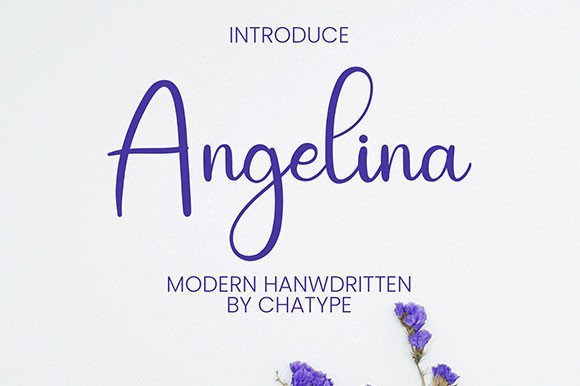
As you sit at your desk, staring at a blank page, the creative juices start flowing. You envision a beautiful quote, a stunning logo, or a eye-catching poster. The possibilities are endless, and the right font can make all the difference. That’s where the elegant Angelina Font comes in – a fresh and refined script that’s perfect for bringing your creative vision to life.
Angelina Font is more than just a typeface; it’s a tool for designers to express themselves and add a touch of sophistication to their projects. Whether you’re working on a fashion brand, a wedding invitation, or a blog header, Angelina Font is a versatile and valuable asset that can elevate your design to the next level.
Angelina Font Key Features
- Unique Characteristics: This script font features elegant, cursive lettering with a touch of vintage charm, making it suitable for creative and artistic designs.
- Font Style: The font is available in a single style, with various weights and ligatures, enabling designers to create unique and customized text layouts.
Angelina Font Review
Overall, I think Angelina Font has some great qualities, but it also has its limitations. Let’s start with what works well: ✨ the elegant and feminine touch, ✨ the beautiful curves that add a sense of sophistication, and ✨ the versatility in font weights and styles.
- The font is perfect for designing feminine brands, such as fashion, beauty, or lifestyle companies.
- It pairs well with other elegant fonts to create a cohesive and polished look.
- The font weights and styles are diverse enough to accommodate various design needs.
However, there are some limitations to consider: ⚠️ the font may not be suitable for bold or edgy designs, ⚠️ the lowercase letters can be difficult to read at smaller font sizes, and ⚠️ the font may not be as readable on digital devices with lower resolution screens.
Overall, I think Angelina Font is a great choice for designers who want to add a touch of elegance and sophistication to their designs. While it may have some limitations, it’s a versatile and beautiful font that can be used in a variety of contexts.
Tips for Getting the Most Out of Angelina Font
Use Angelina Font for creative projects that require a unique and elegant touch.
Experiment with different font sizes and styles to achieve the desired effect.
Pair Angelina Font with other creative fonts to add depth and visual interest to your design.
Birth announcements and baby shower invitations
Personalized gifts and cards
Alternatives to Angelina Font for Designers
Great Vibes is a modern, elegant script font ideal for creating a sophisticated and luxurious feel in designs. It’s perfect for branding, invitations, and other high-end applications. Compared to Angelina Font, Great Vibes has a more refined and polished appearance, making it suitable for a wider range of designs.
Carolyna Pro is a beautiful, handwritten script font with a unique and artistic flair. It’s great for adding a touch of personality and whimsy to designs, making it ideal for creative projects like book covers, posters, and social media graphics. Compared to Angelina Font, Carolyna Pro has a more free-spirited and expressive feel.
Alex Brush is a stylish, modern script font with a strong and elegant appearance. It’s perfect for creating a professional and sophisticated look in designs, making it suitable for corporate branding, business cards, and other formal applications. Compared to Angelina Font, Alex Brush has a more structured and refined feel.
What is the recommended font size for Angelina?
The recommended font size for Angelina depends on the intended use and the desired level of readability. For body text, we recommend using font sizes between 12pt and 14pt. For headings and titles, you can use larger font sizes, such as 18pt, 24pt, or 36pt, depending on the design requirements.